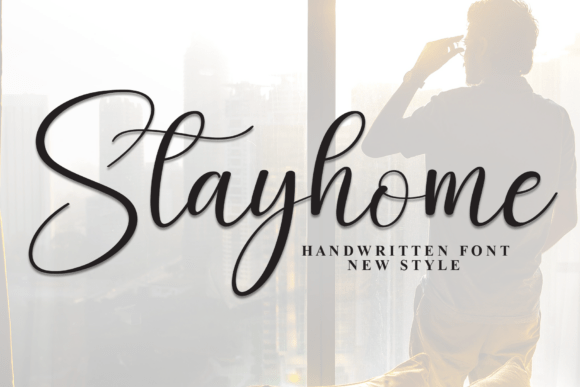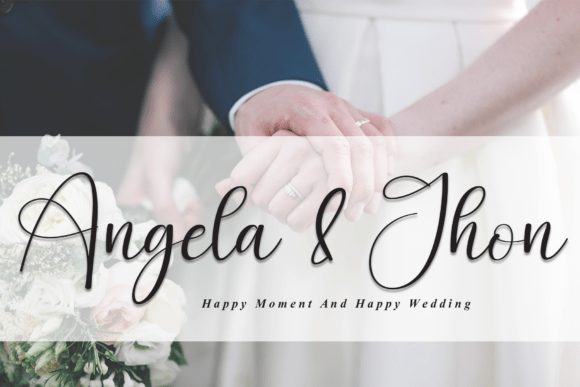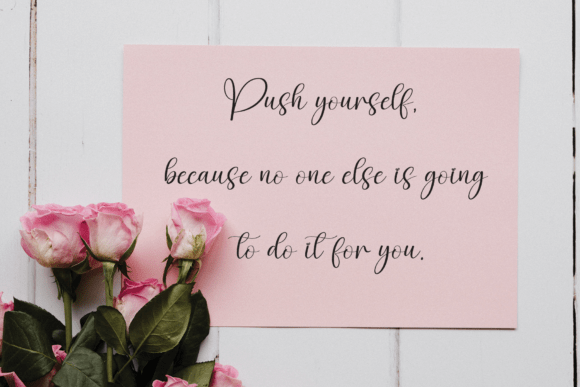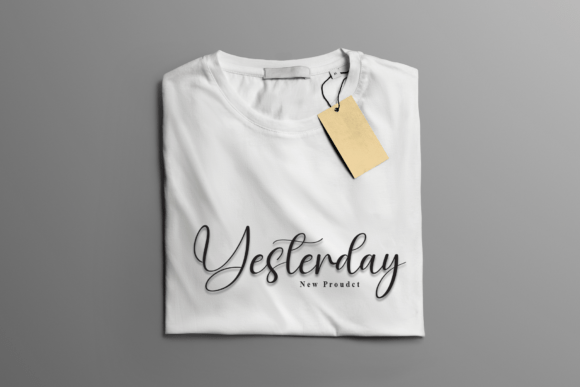
Stayhome Font
About the Stayhome Font
The wait is over! The incredible Stayhome Font is now available for your design toolkit. Stayhome is a stylish handwritten script font that blends modern elegance with a playful touch. Its fluid strokes and charming curves bring a personal feel to any design. Ideal for logos, packaging, and invitations, this typeface adds warmth, sophistication, and creativity to every project.
Stayhome Font Usage Examples
Stayhome Font Example